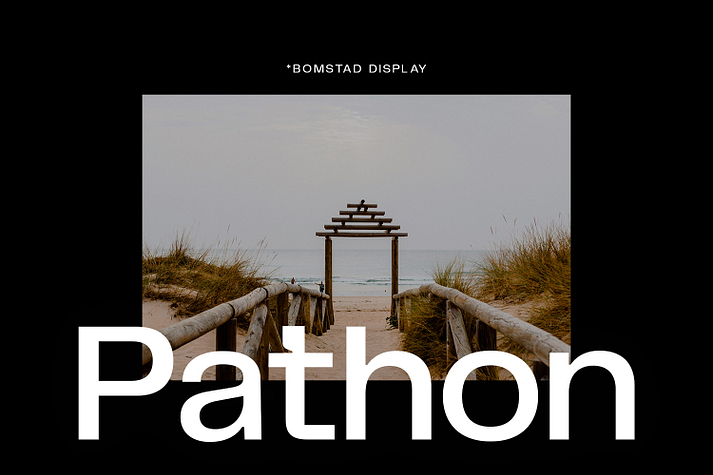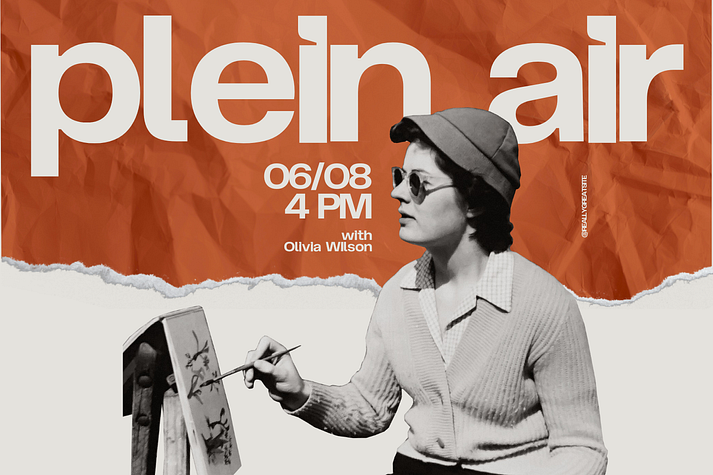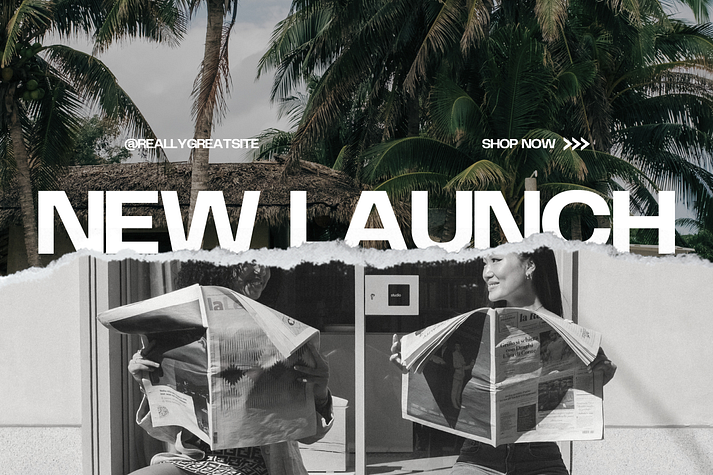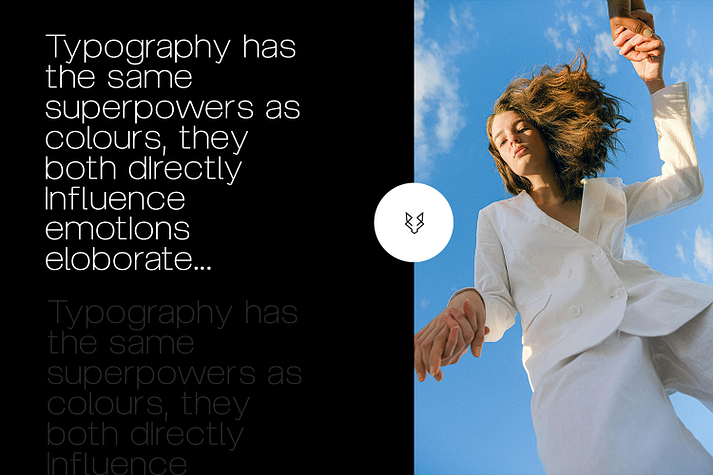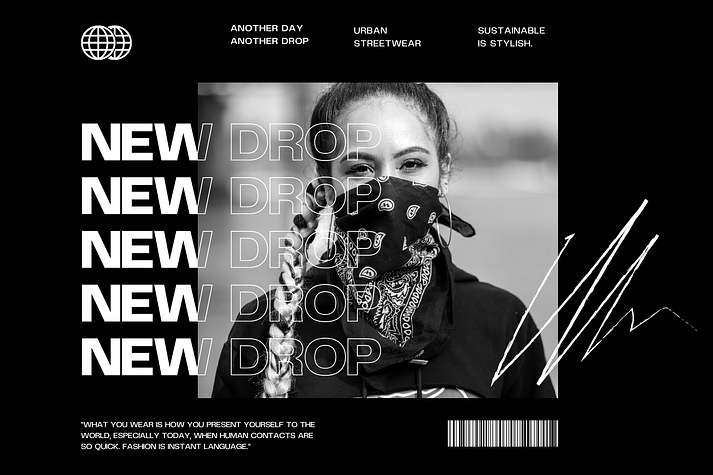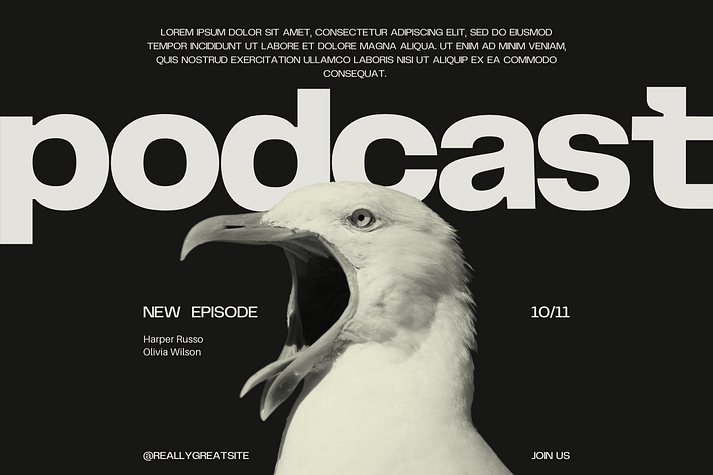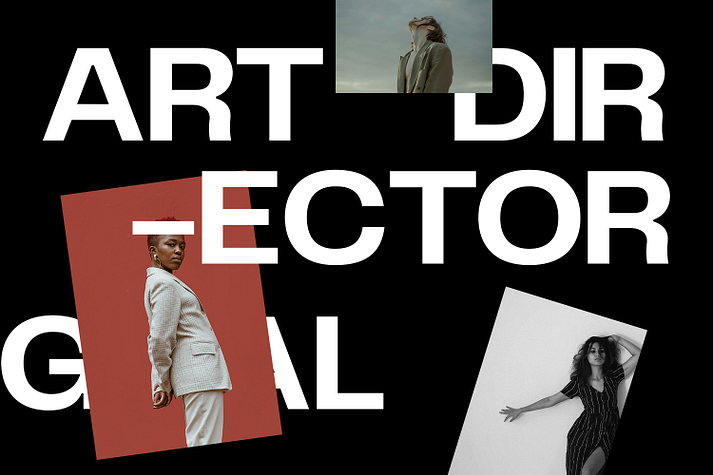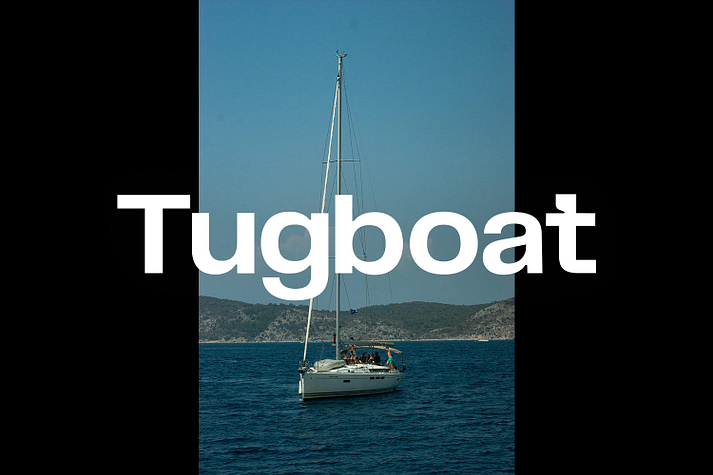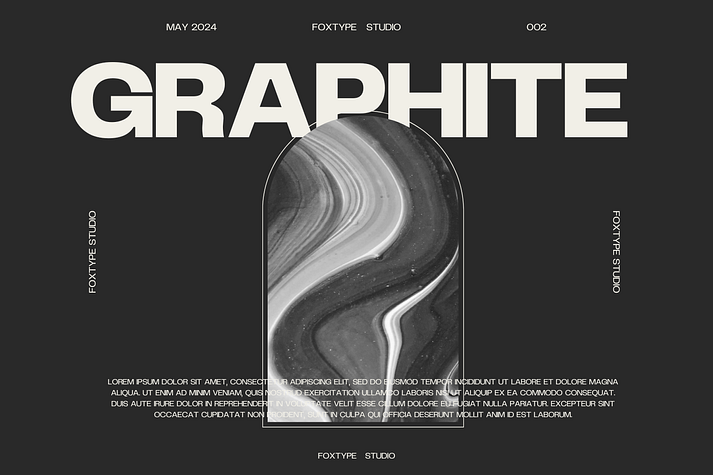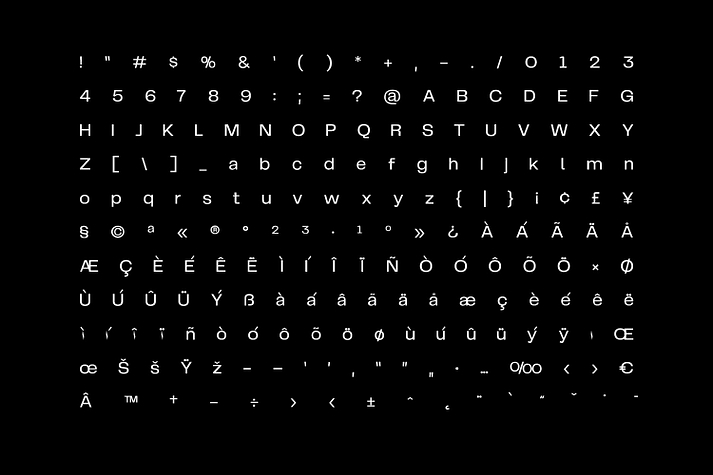
Bomstad Display
Bomstad Display is a sans serif font family. This typeface has nine styles and was published by Foxtype.
Introducing Bomstad, a meticulously crafted modern sans-serif typeface perfect for a wide range of design projects. With 9 versatile weights, Bomstad excels in creating striking headlines, captivating posters, and sophisticated branding materials. Its clean lines and contemporary style make it an ideal choice for magazine covers, logo designs, paragraph texts, and more.